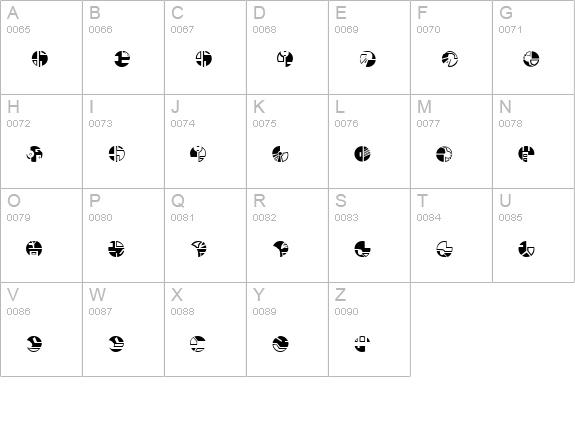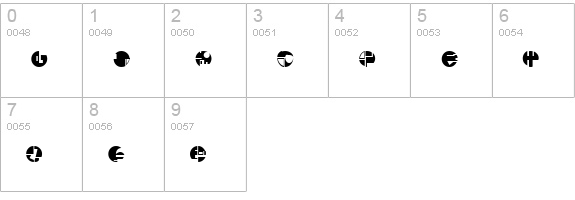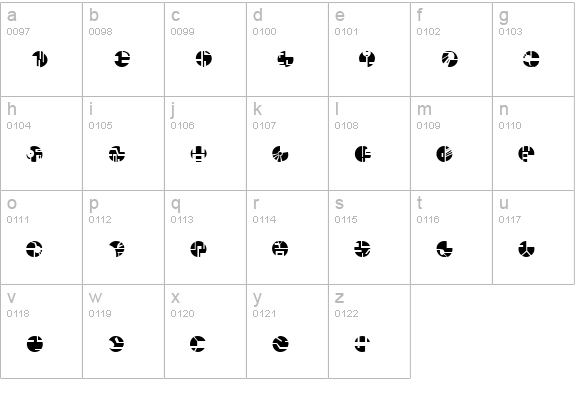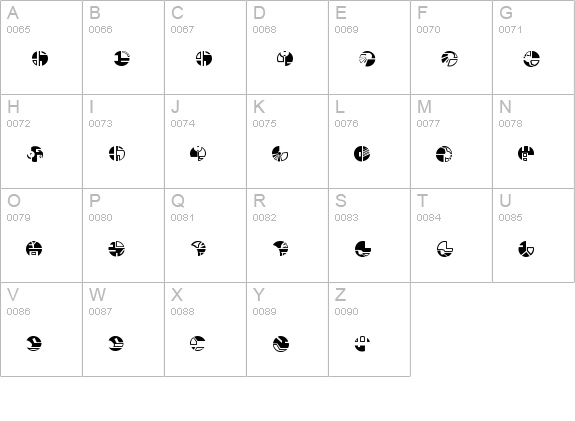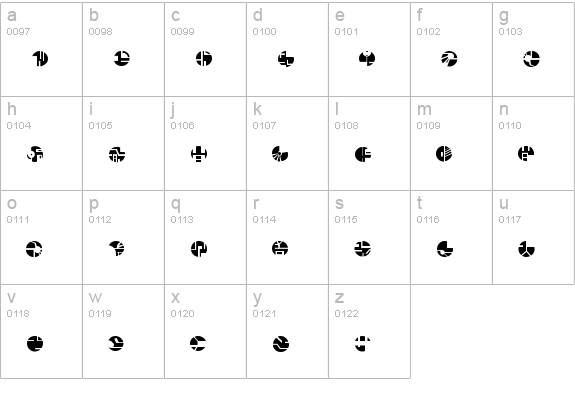
Borg font is a modern and stylish typeface that exudes a sense of sophistication and elegance. With its sleek lines and unique character shapes, Borg font is perfect for adding a touch of sophistication to any design project. Whether you're working on a branding project, a website design, or a creative poster, Borg font will make your text stand out and captivate your audience. What makes Borg font even more appealing is that it is available for free download at FontsMarket.com. This means that you can easily access this beautiful typeface and use it in your projects without any cost. So go ahead and enhance your designs with Borg font today!